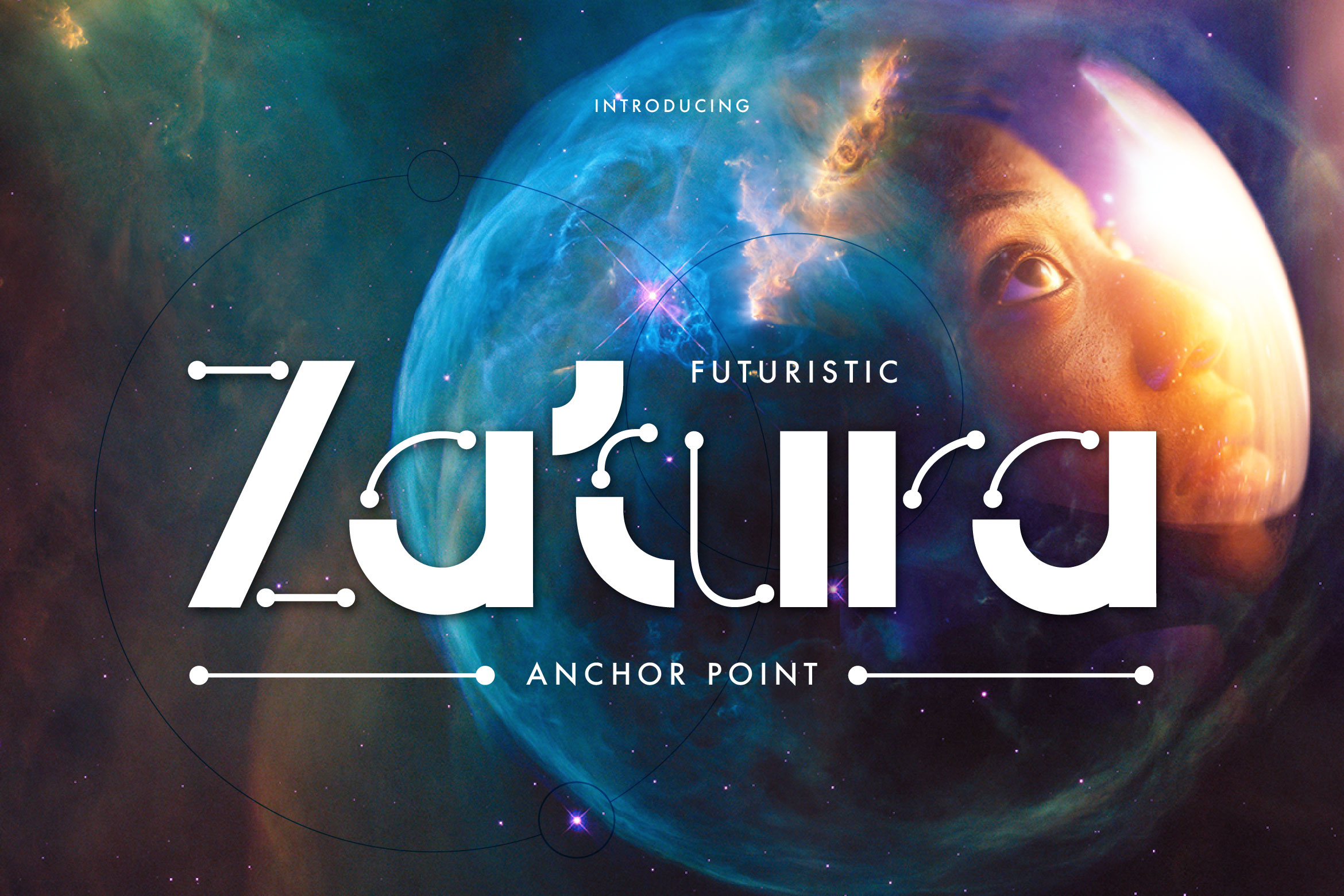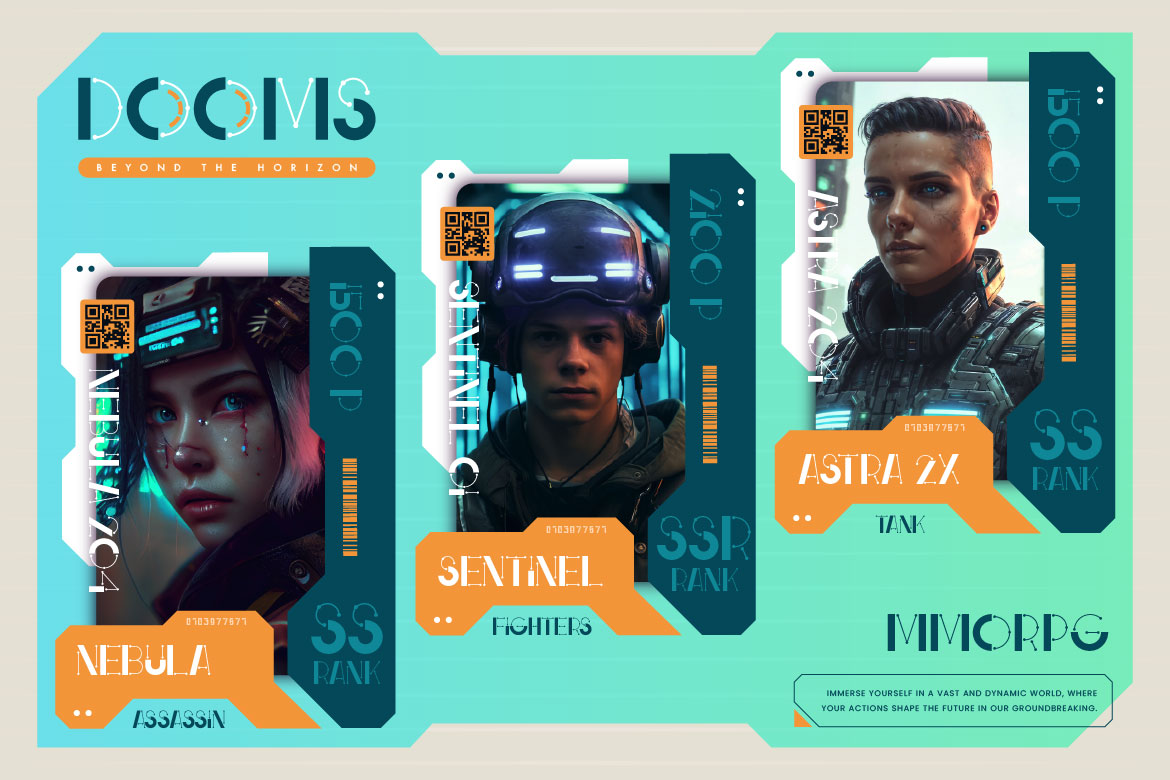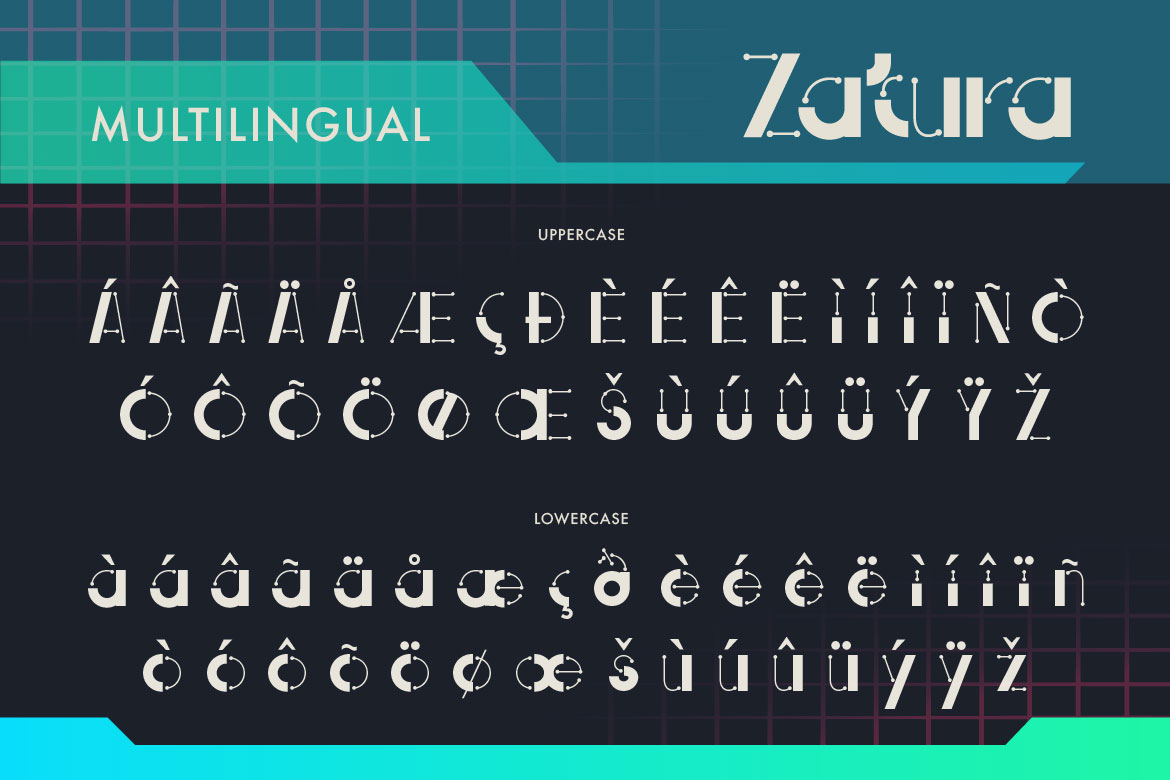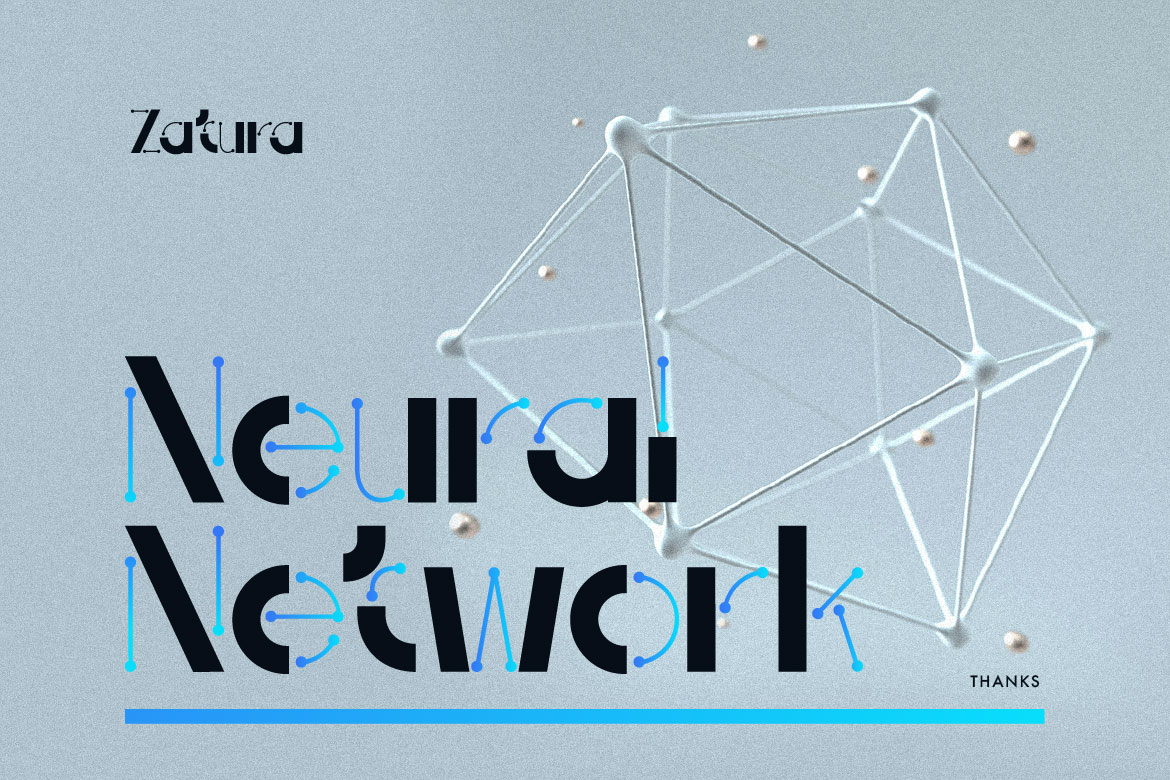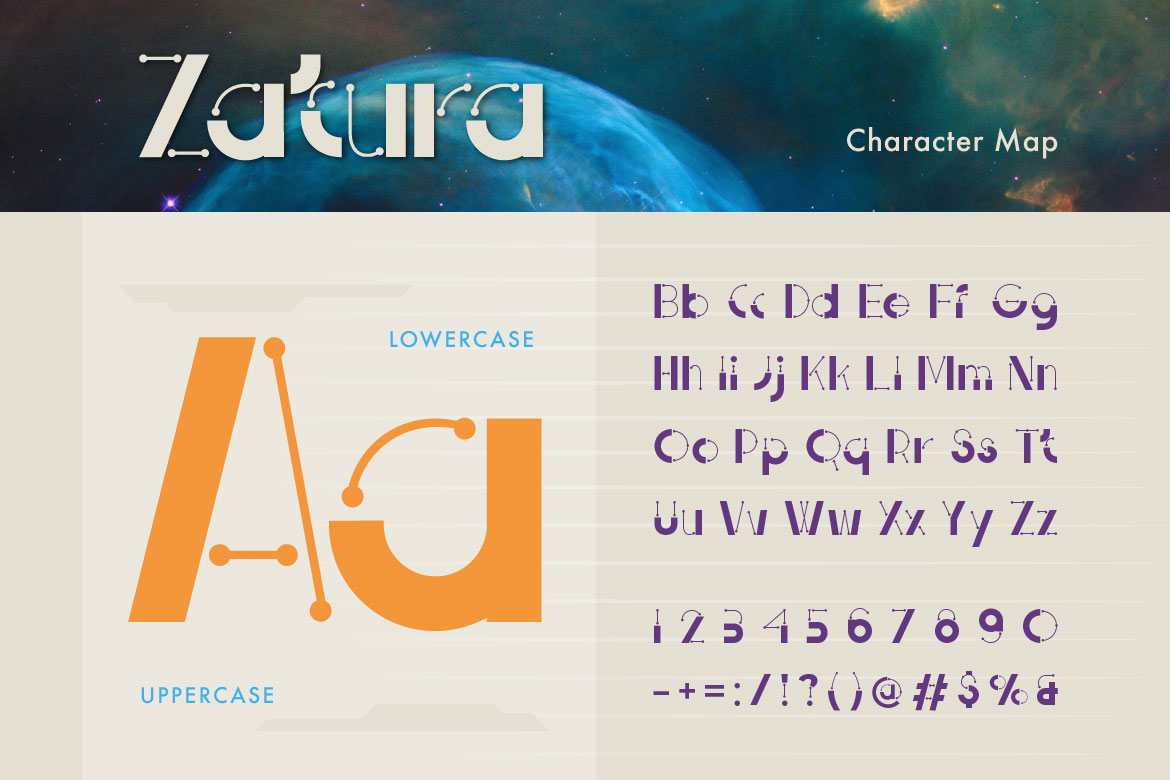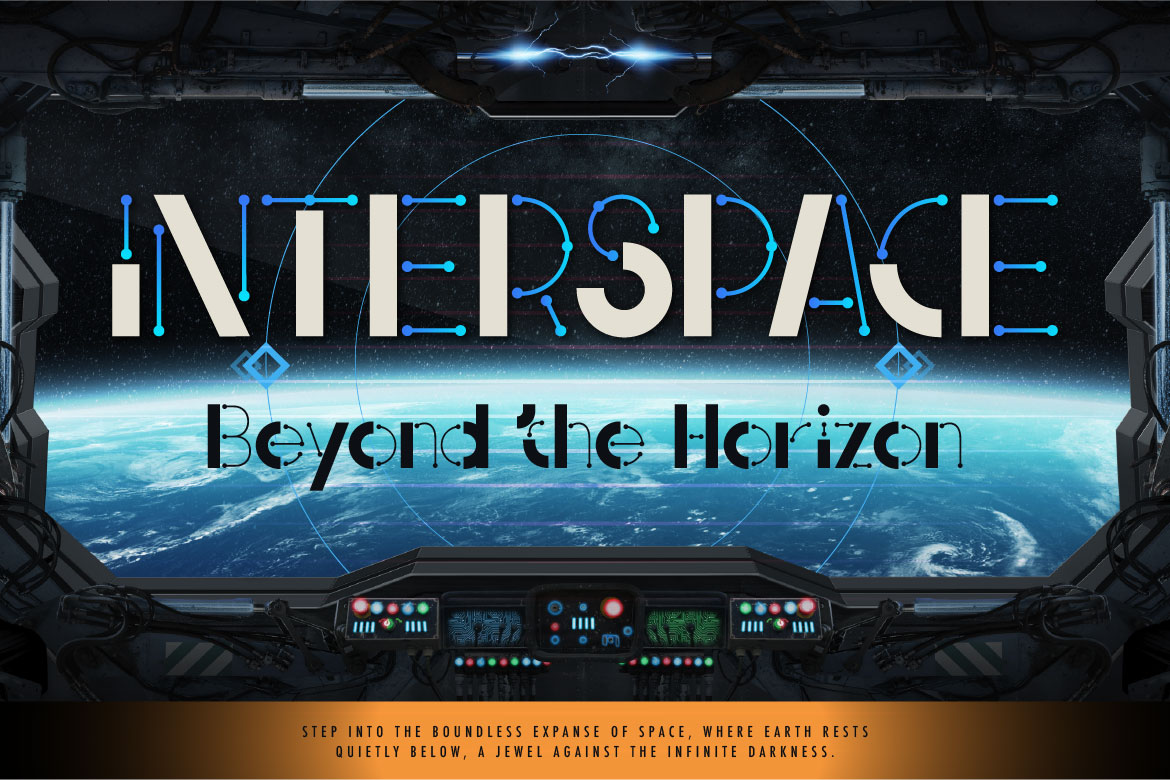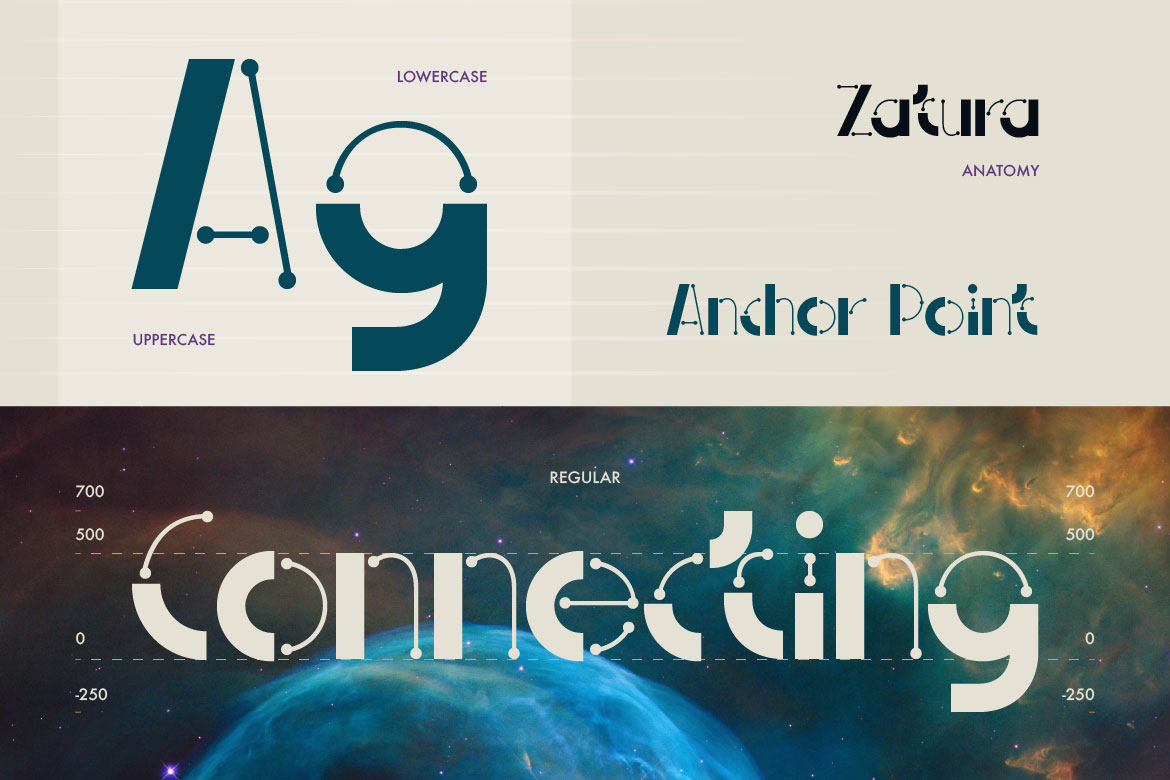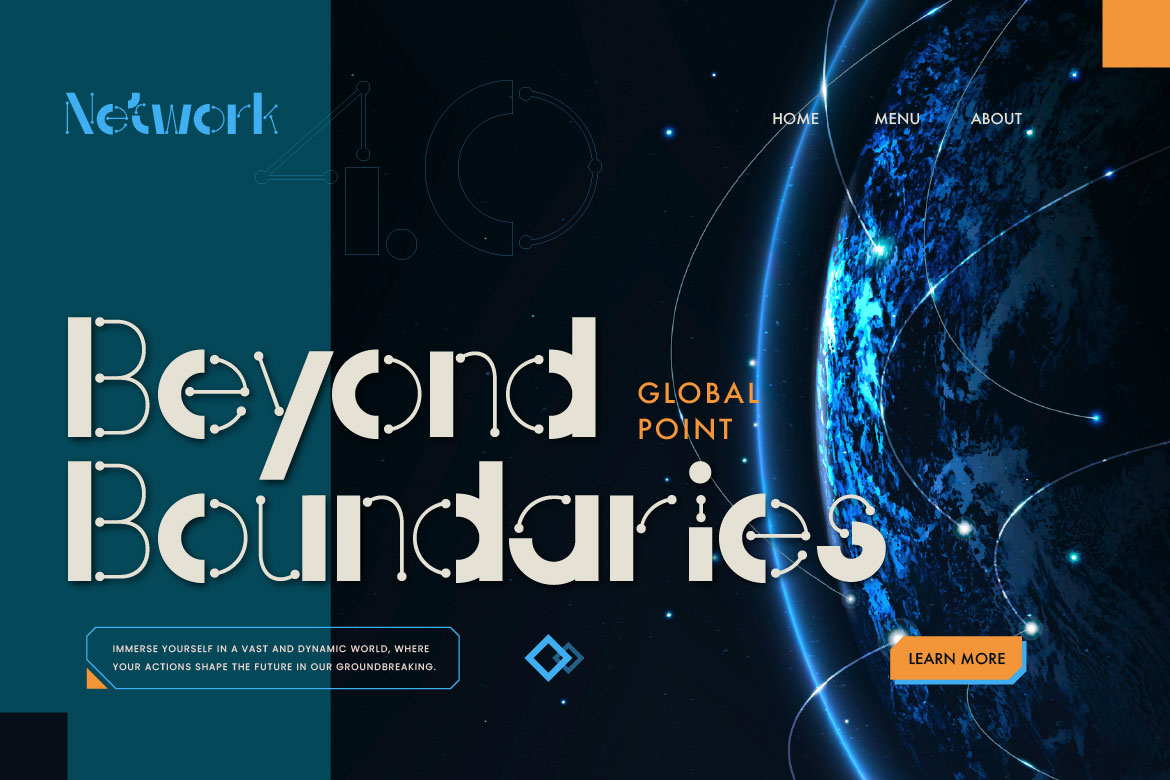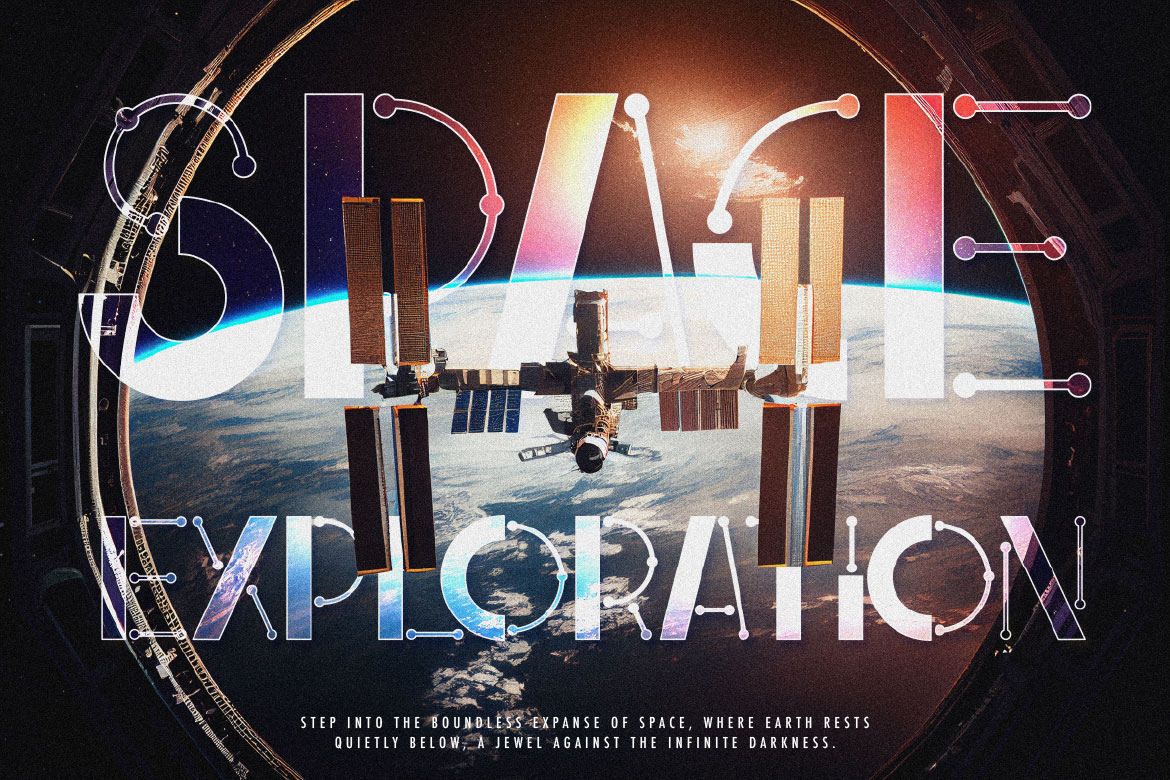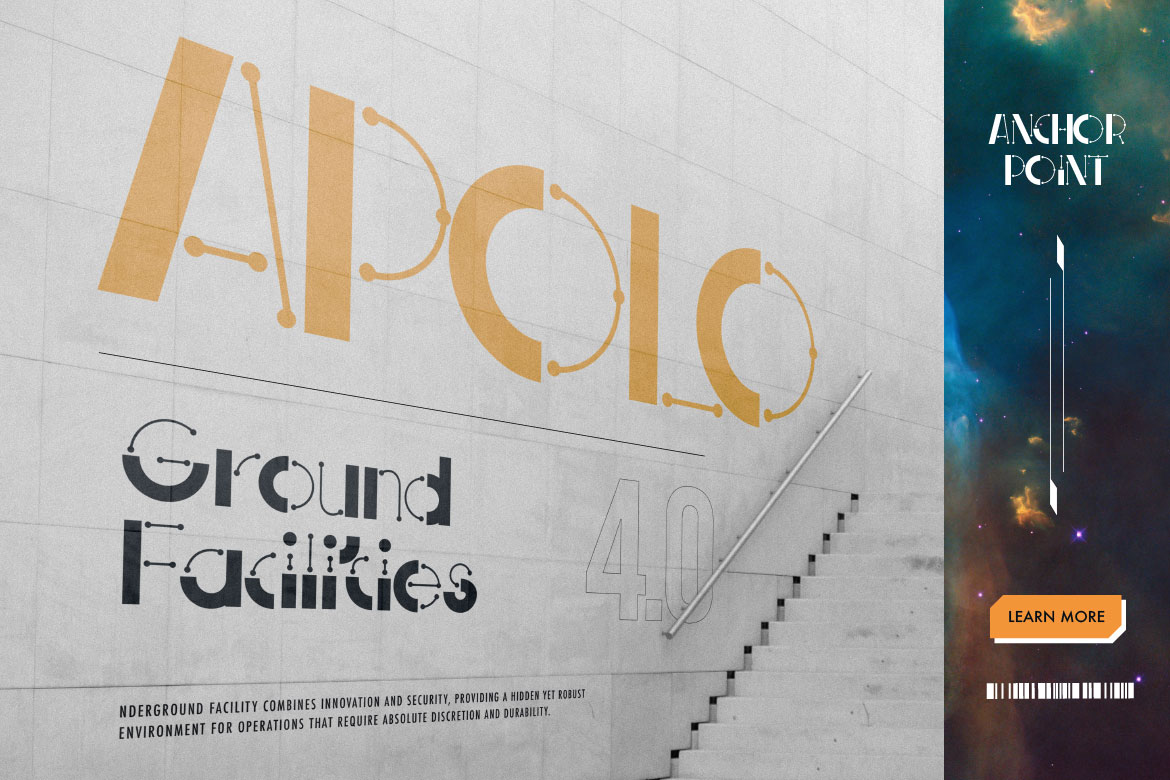
Proudly present, Zatura, a unique typeface that blends straight lines with dots, making each letter take on a different dimension. It bring a digital and futuristic vibe with its geometric shapes. Zatura stands out as both functional and stylish, making it perfect for use in branding, logo design, and editorial project. It offers a distinct look that maintains readability and balance. The font combines precision with creativity, allowing for dynamic typographic compositions that make an impact.